1. Introduction to Modern Futuristic Font Styles Typography
Modern Futuristic Font Styles design is constantly evolving, and typography plays a crucial role in defining how brands communicate innovation. Modern Futuristic Font Styles are designed to represent technology, progress, and forward-thinking creativity. These fonts are widely used in tech branding, gaming, startups, UI/UX design, and digital products that want to feel cutting-edge.
With the rise of AI, Web3, gaming culture, and digital interfaces, futuristic fonts have become an essential design tool for visual storytelling in the modern era.
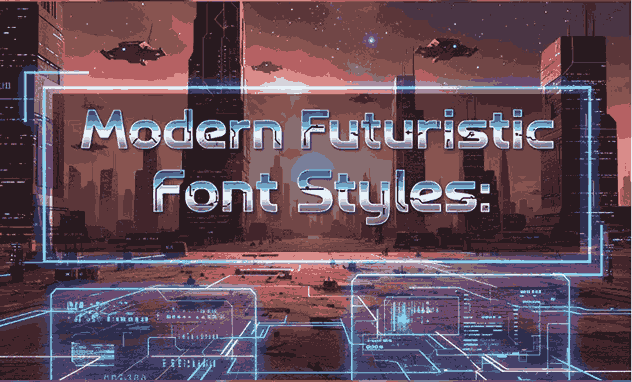
2. What Defines Modern Futuristic Font Styles
Modern futuristic fonts are typefaces inspired by technology, science fiction, space exploration, and digital aesthetics. They often blend clean geometry with experimental letterforms to create a futuristic atmosphere.
Unlike classic serif or traditional sans-serif fonts, futuristic fonts are meant to stand out, convey innovation, and instantly communicate a modern identity.
3. Why Matter Modern Futuristic Font Styles
Typography influences how users perceive a brand within seconds. Futuristic font styles help brands:
- Communicate innovation and modernity
- Stand out in competitive digital markets
- Build strong visual identity
- Attract tech-savvy audiences
- Enhance user experience in digital products
In fast-paced industries like tech, gaming, fintech, and creative startups, futuristic typography often becomes a key branding asset.
4. Key Characteristics of Modern Futuristic Font Styles
Modern futuristic font styles usually share the following characteristics:
✔ Geometric Structure
Clean shapes, sharp angles, and symmetrical forms create a high-tech feel.
✔ Experimental Letterforms
Unusual cuts, gaps, outlines, or modular structures give futuristic fonts a unique identity.
✔ Minimalist Aesthetic
Despite their bold look, futuristic fonts often avoid excessive decoration.
✔ Strong Visual Impact
Designed mainly for headlines, logos, posters, and hero sections.
5. Best Use Cases for Modern Futuristic Font Styles Typography
Modern futuristic fonts work best in the following applications:
- Technology and startup branding
- Gaming titles and esports visuals
- Sci-fi posters and digital artwork
- UI/UX design and dashboards
- NFT, crypto, and Web3 projects
- Product landing pages and hero banners
Using futuristic typography strategically helps deliver a strong, memorable impression.
6. How to Choose the Right Modern Futuristic Font Styles
When selecting a futuristic font, consider:
- Purpose – Is it for branding, headlines, or UI?
- Readability – Decorative fonts should remain legible
- Compatibility – Ensure web-ready formats (OTF, TTF, WOFF)
- Consistency – Match font style with brand tone
Avoid overusing futuristic fonts for long body text. Pair them with clean sans-serif fonts for balance.
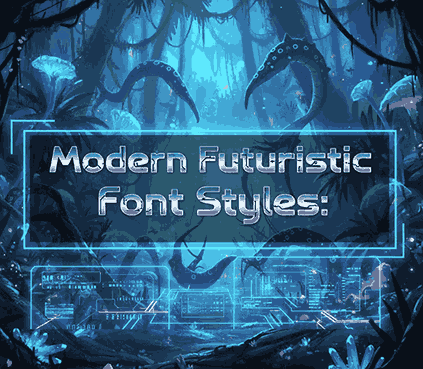
7. Modern Futuristic Font Styles Examples from Edric Studio
Below are high-quality futuristic fonts available on EdricStudio.com, perfect for showcasing modern typography in action:
🔹 Gracetians Sans Serif Font
A modern sans serif display font with futuristic cuts and dynamic styles, perfect for branding and headlines.
🔹 Verwalter Futuristic Font
Bold futuristic display font with laser, outline, and modern variations, ideal for tech and sci-fi visuals.
🔹 Planet View Font
A sleek modern display font inspired by space and future aesthetics, great for posters and digital layouts.
🔹 Botnet Font
Cyberpunk-inspired futuristic font with a strong techno vibe, perfect for gaming, digital products, and futuristic branding.
These fonts demonstrate how modern futuristic typography can elevate visual identity and design impact.
8. Typography Pairing Tips for Futuristic Fonts
To maintain usability and visual balance:
- Use futuristic fonts for headlines or logos
- Pair with clean sans-serif fonts for body text
- Maintain consistent spacing and hierarchy
- Avoid pairing two highly decorative fonts together
Good pairing ensures futuristic fonts enhance design without harming readability.
9. Design Tips to Maximize Impact
Here are practical tips for using futuristic fonts effectively:
- Use generous whitespace to let the font breathe
- Apply contrast through size and weight
- Combine with modern UI elements
- Test typography across screen sizes
- Avoid excessive effects that reduce clarity
Futuristic fonts work best when supported by clean layouts and modern visual systems.
10. Conclusion
Modern Futuristic Font Styles are powerful tools for designers who want to communicate innovation, technology, and forward-thinking design. When used correctly, they enhance branding, improve engagement, and strengthen visual storytelling.